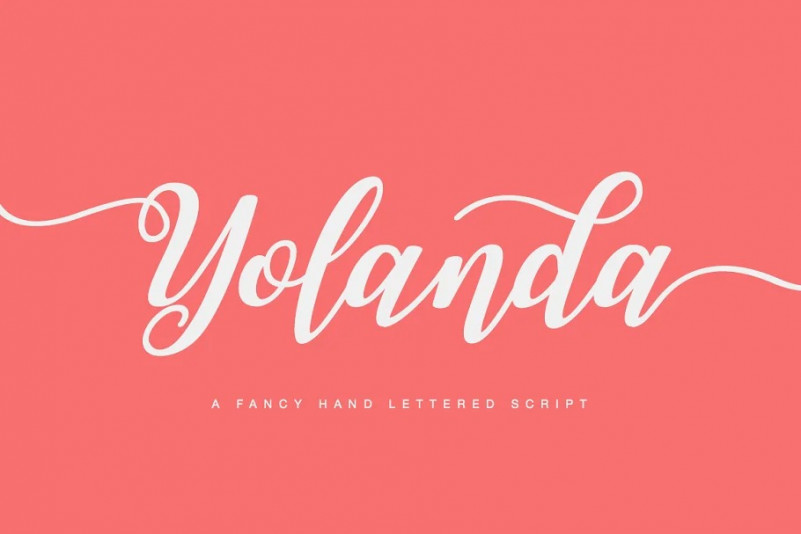
Yolanda Script Font
Hello Everyone, introduce our new product, Yolanda Script Font is a stylish script font that features a varying baseline, smooth line, modern and with a depth love.
For those of you who are need a touch of love and modernity for your designs or branding,
It can be used for various purposes such as headings, wedding, invitation, signature, logos, branding, t-shirt, letterhead, signage, lable, news, posters, badges etc.